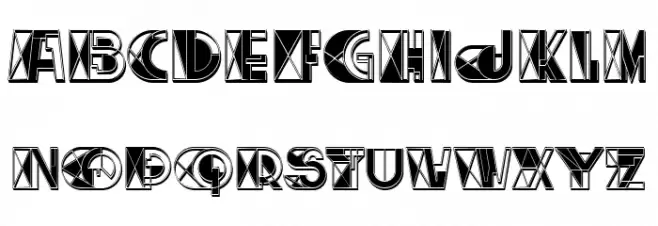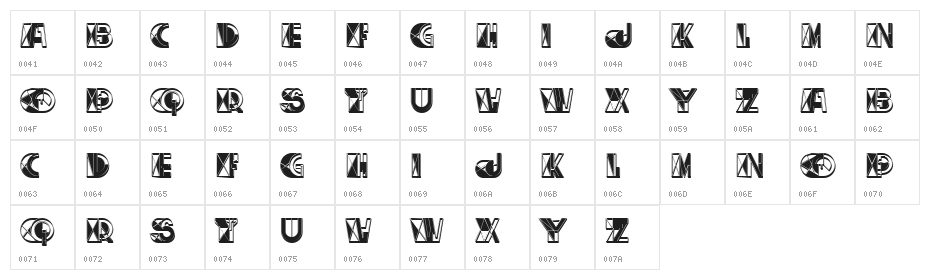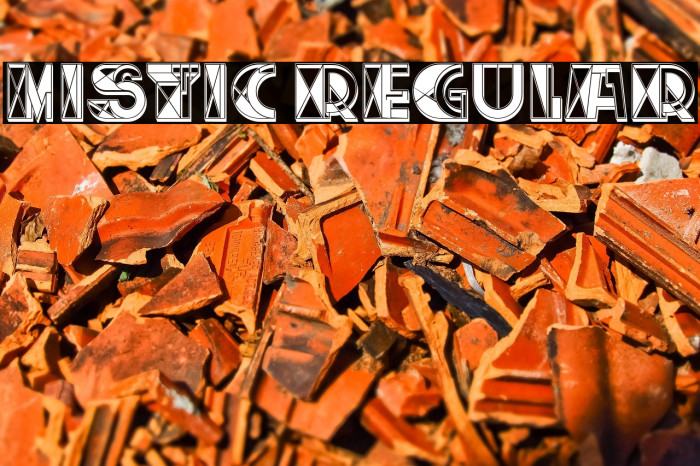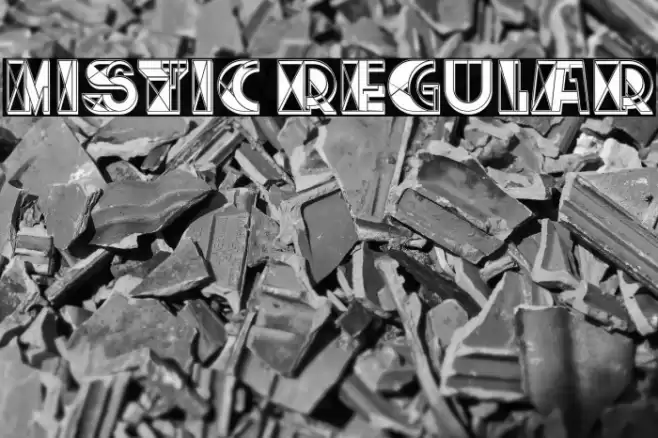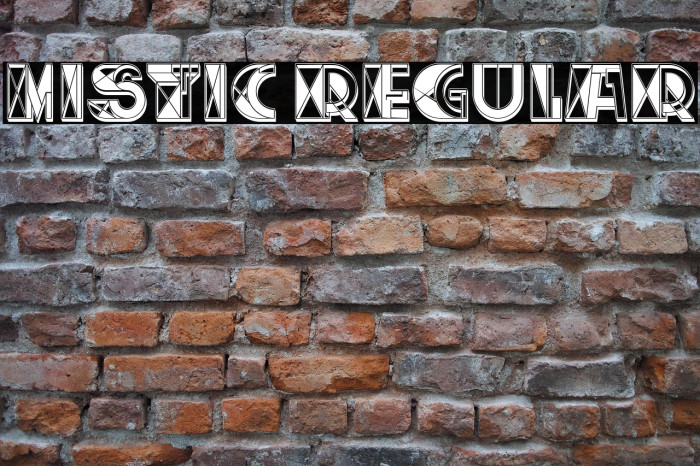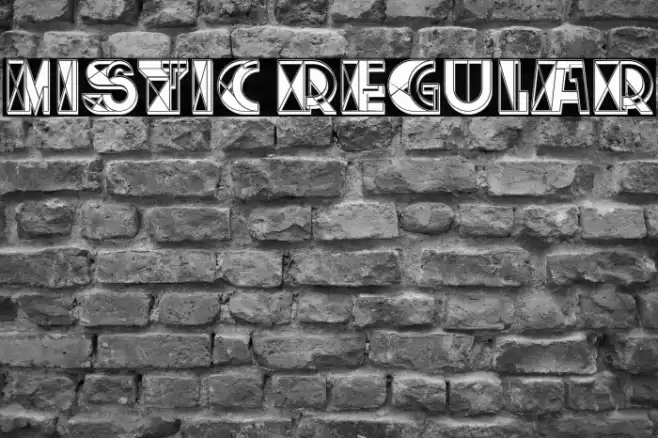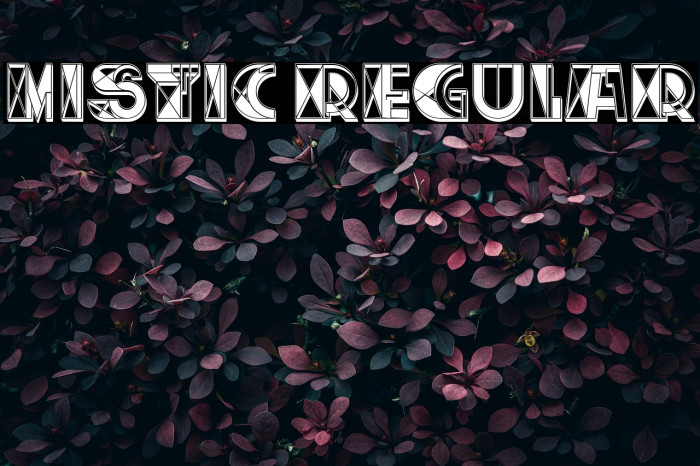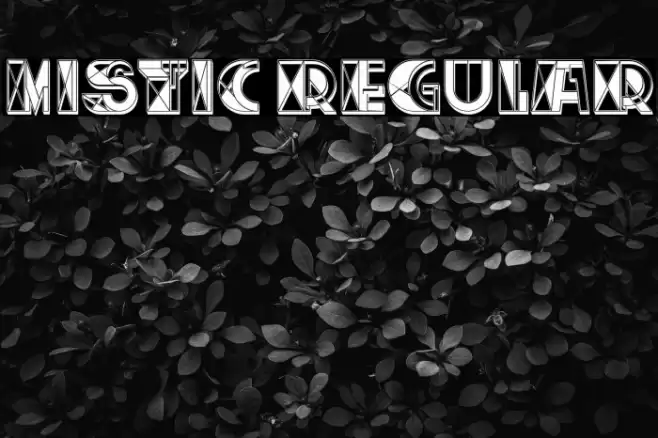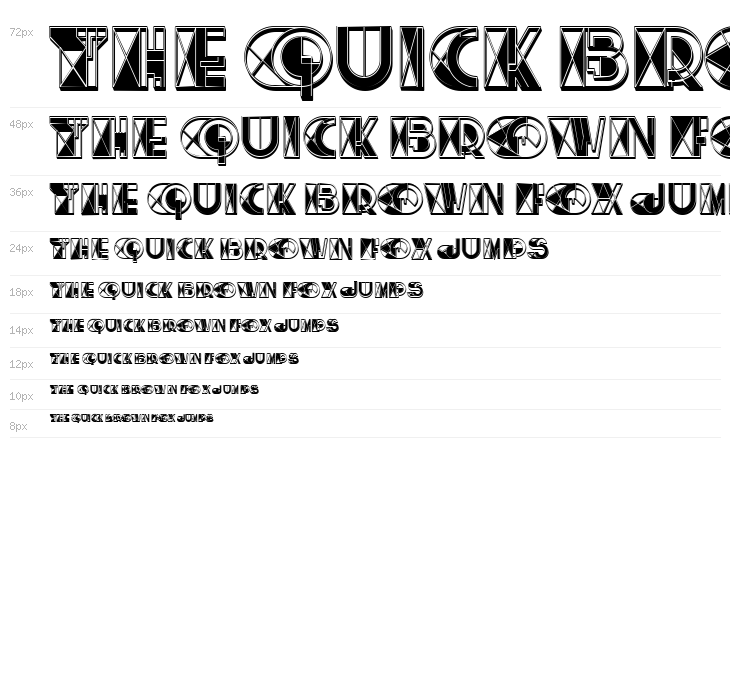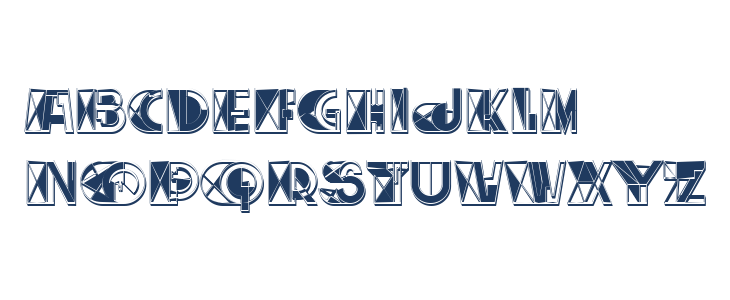
Mistic Regular Font
Mistic Regular Description
This font features a bold, geometric design with intricate patterns within each character. The letters are constructed with a combination of solid and outlined segments, creating a dynamic and visually striking appearance. The use of sharp angles and contrasting line thicknesses gives it a modern and edgy feel. Each character is uniquely styled, incorporating a mix of filled and hollow spaces that add depth and complexity. The overall look is both artistic and structured, making it suitable for creative and contemporary projects.